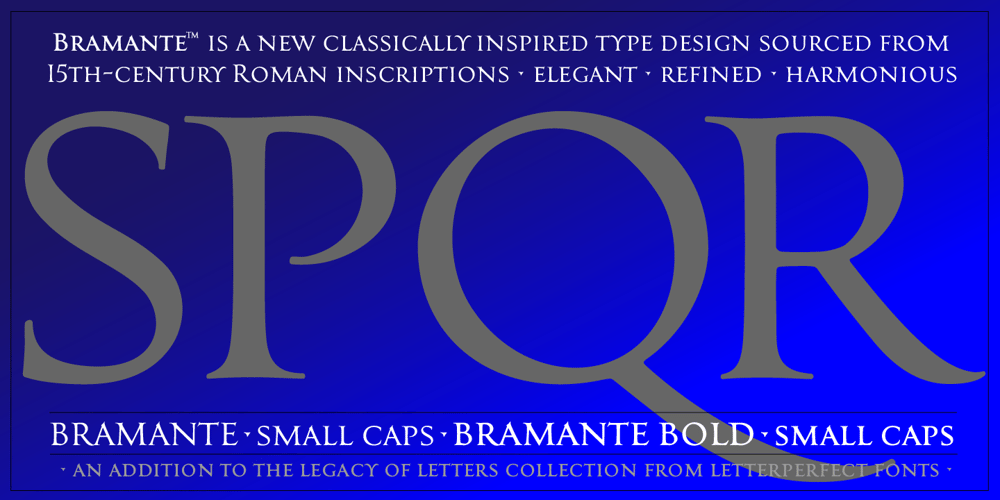
Bramante LP
Bramante LP font
Bramante LP Font Family was designed by Garrett Boge and published by LetterPerfect. Bramante LP contains 2 styles and family package options. Bramante™ is an original display font by LetterPerfect Fonts, designed by Garrett Boge in 2020. It is modeled after a fifteenth-century inscription in the church of Santa Cecilia in Trastevere, Rome. The name is a tribute to the pre-eminent Renaissance architect Donato Bramante, whose Tempietto (1502, San Pietro in Montorio) marked the beginning of the High Renaissance in Rome. In 1503 he was named lead architect for the new St. Peter’s Basilica, which was completed by Michelangelo, Maderno and Bernini a century later. Based on the pervasive use of Adobe Trajan as a classical-inspired titling face, LetterPerfect offers this Renaissance revival of imperial Roman capitals as an alternative with additional refinement and personality. (The full size capitals are complemented with small capitals in the lowercase positions.)